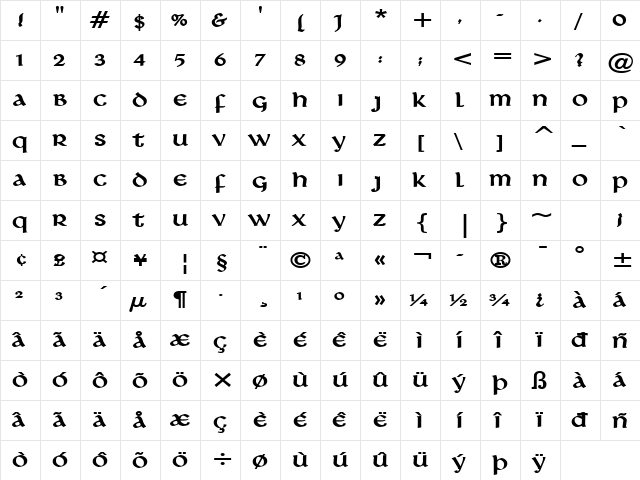
Leo Wide Bold
Design Context for Leo Wide Typeface
Leo Wide takes a measured approach to typography — its balanced proportions and neutral character make it a reliable workhorse for both digital and print work. The heavy weight commands attention and anchors typographic hierarchies.